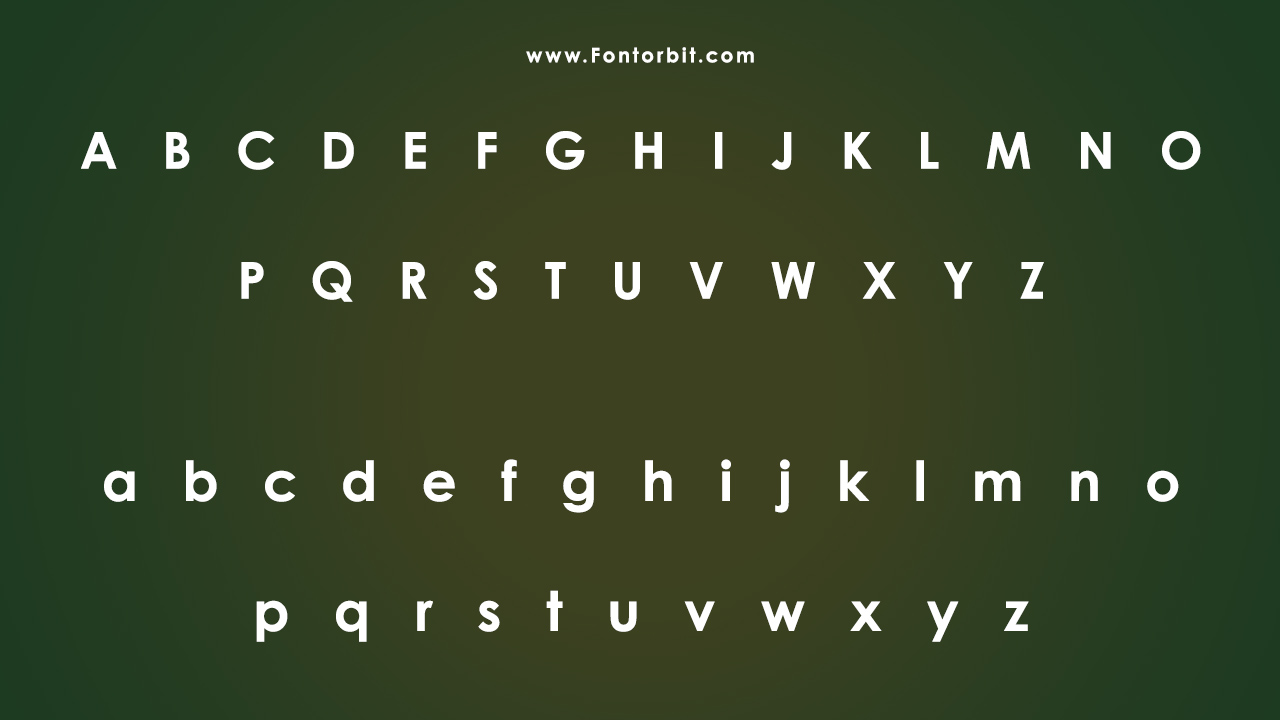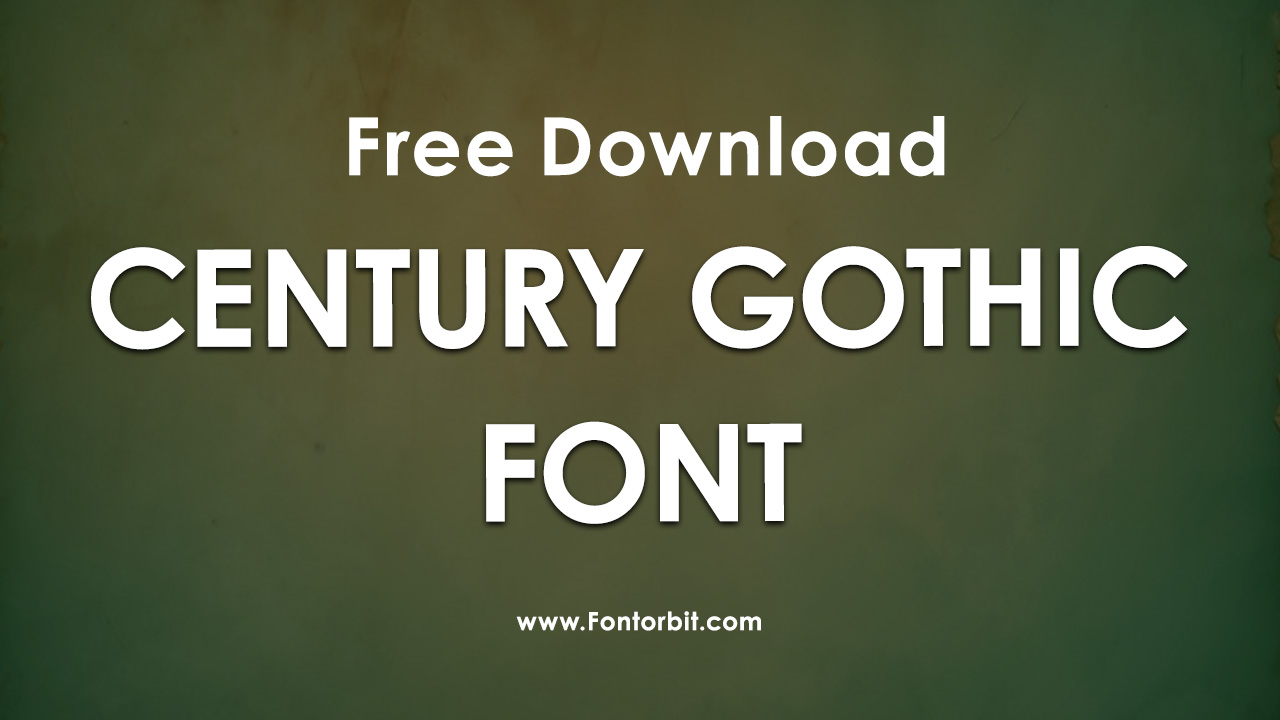
Sol Hess designed Century Gothic, a geometric sans-serif typeface released by Monotype Imaging in 1990. This typeface modernizes Monotype’s Twentieth Century, which Bauer’s Futura inspired, and adjusts its widths to align with ITC Avant Garde Gothic. Monotype Imaging has only produced Century Gothic as a digital typeface and has never manufactured it in metal type.
Century Gothic Family Includes
Century Gothic is available in several weights and styles, making it versatile for various design needs. The font family list includes:
- Century Gothic Std Regular
- Century Gothic Std Bold
Notable Uses Of Century Gothic
Century Gothic is widely used in various design contexts due to its clean and modern appearance. It is often seen in:
- Corporate branding and identity
- Website design and UI elements
- Print media, including brochures and advertisements
Century Gothic’s modern, clean lines make it ideal for professional documents, web design, and branding materials. Its geometric design provides a contemporary feel that is both approachable and professional.
Century Gothic remains a popular choice for designers seeking a modern and geometric sans-serif typeface. Its versatility and clean aesthetic make it suitable for a wide range of applications from branding to web design. Whether you’re working on a corporate identity or a creative project, Century Gothic offers a professional and contemporary look.
2.What Is Century Gothic Used For?
It is commonly used in corporate branding, web design, and print media.
5.Who Is The Designer Of Century Gothic?
Monotype Imaging created it.
6.What Are The Primary Features Of Century Gothic?
It features clean, geometric shapes and a modern appearance.